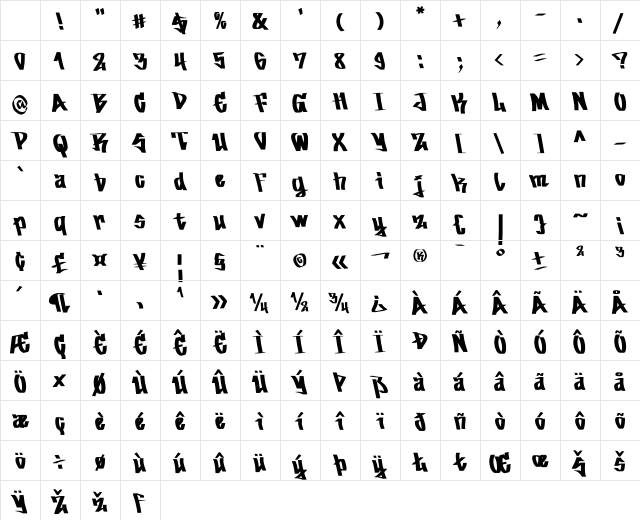
Complete Gress Down Regular glyph index. Displaying only characters natively supported by Gress Down Regular font.
Gress Down is a composed and adaptable typeface that performs quietly and consistently across a wide range of design contexts.